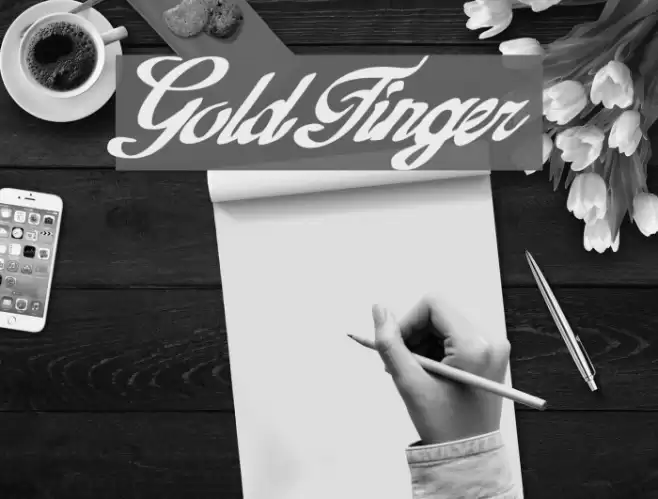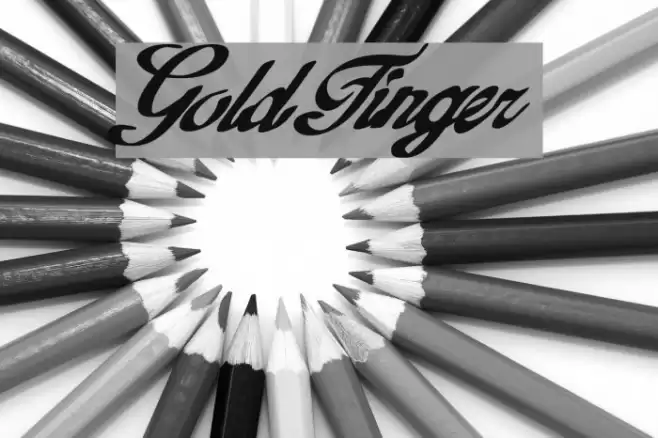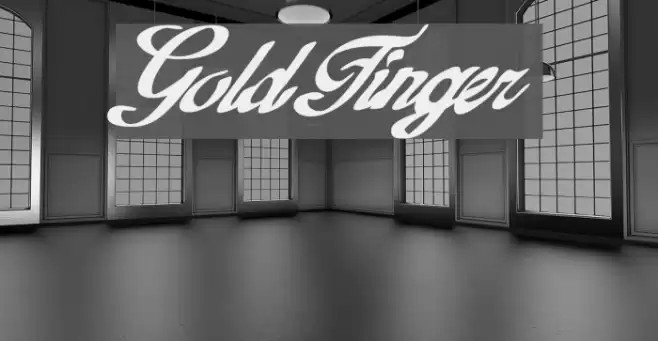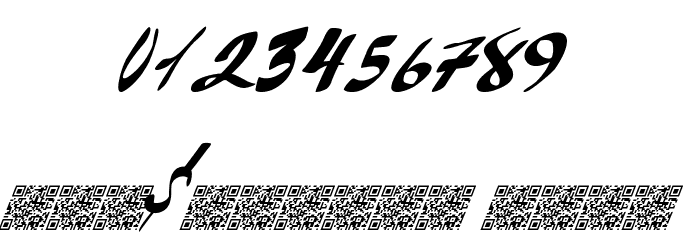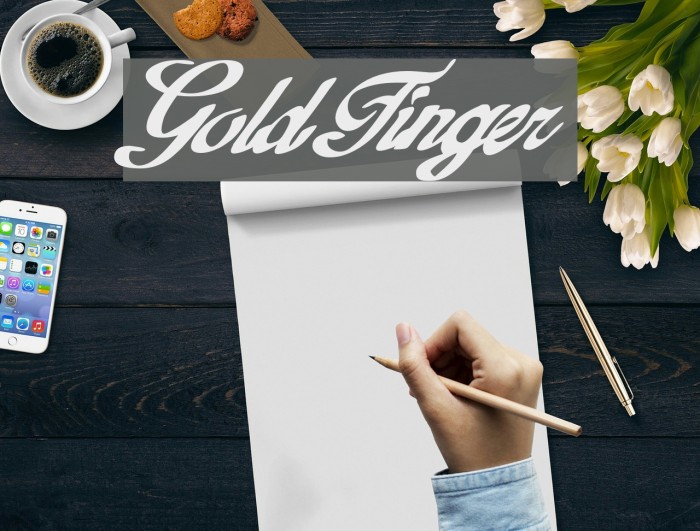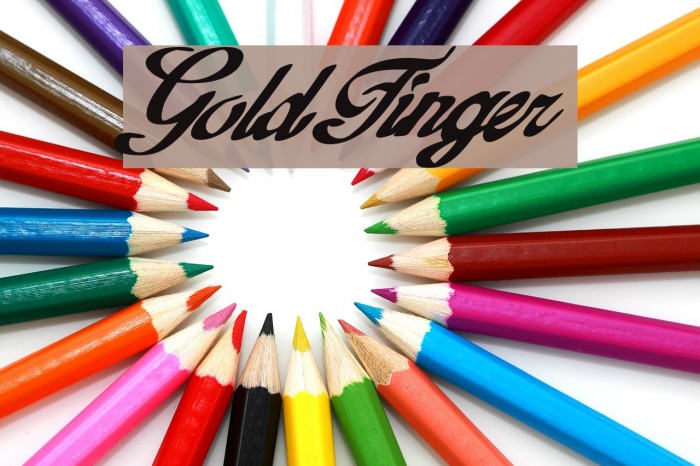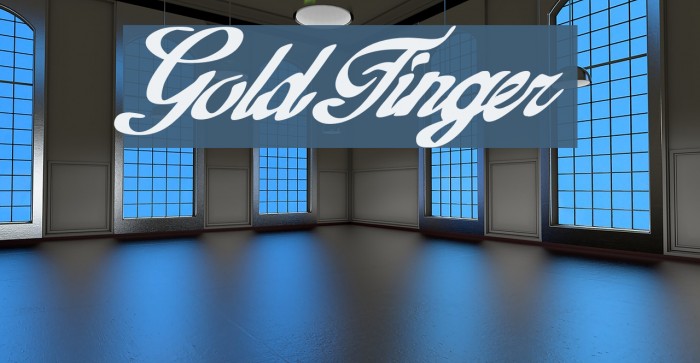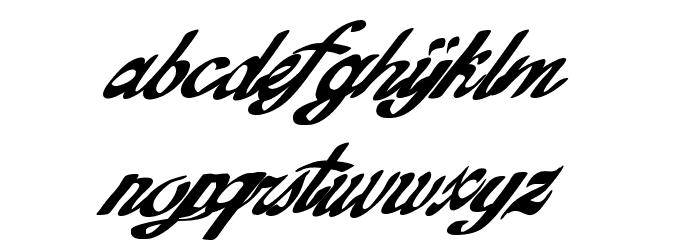
GoldFinger Font
GoldFinger Description
This font exhibits a bold and elegant script style, characterized by its flowing, cursive letterforms that convey a sense of sophistication and flair. The uppercase letters are ornate and sweeping, with exaggerated curves and flourishes that add a touch of drama. The lowercase letters maintain a consistent style, offering a smooth and connected appearance that enhances readability while preserving the decorative nature of the font. Numbers and special characters are designed to match the overall aesthetic, ensuring a cohesive look across all text. The font's bold weight and high contrast between thick and thin strokes make it particularly eye-catching, suitable for projects that require a touch of elegance and impact.
A bold, elegant script font with flowing, cursive letterforms and high contrast from Uncategorized fonts.
- Proposed Projects: Ideal for wedding invitations, luxury branding, elegant logos, and decorative headlines.
- Overall Style: Elegant, Decorative
- Use Case: Logos, Headlines, Invitations